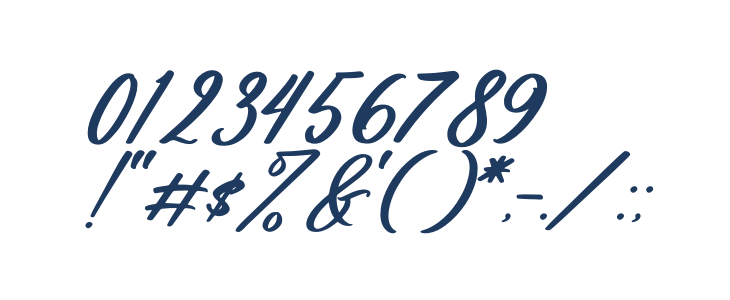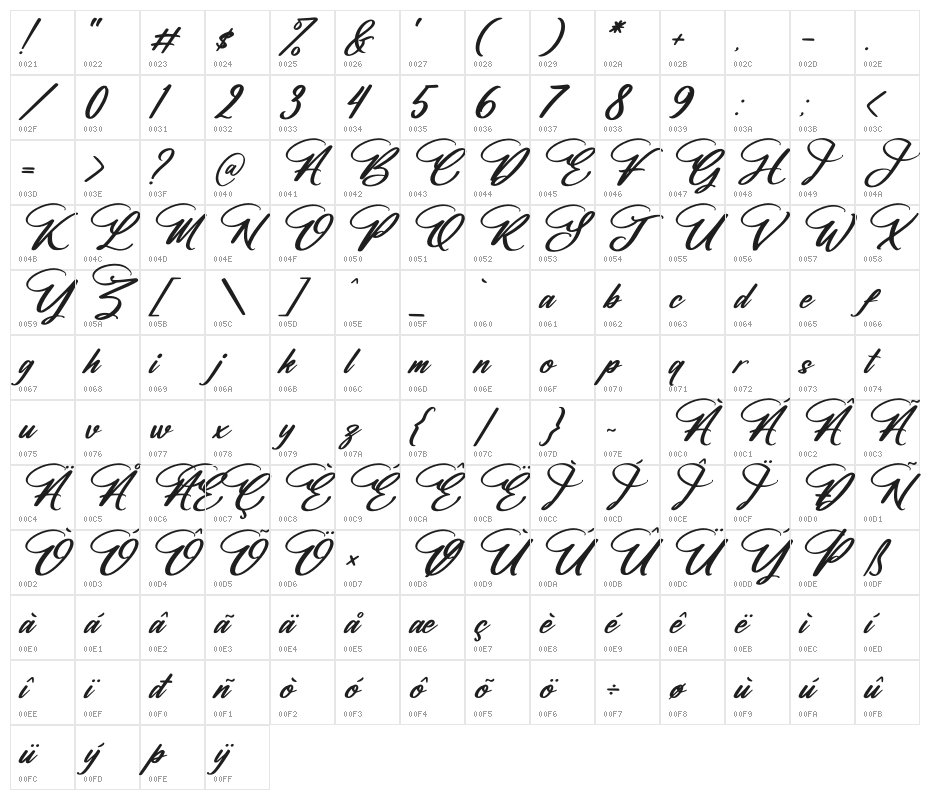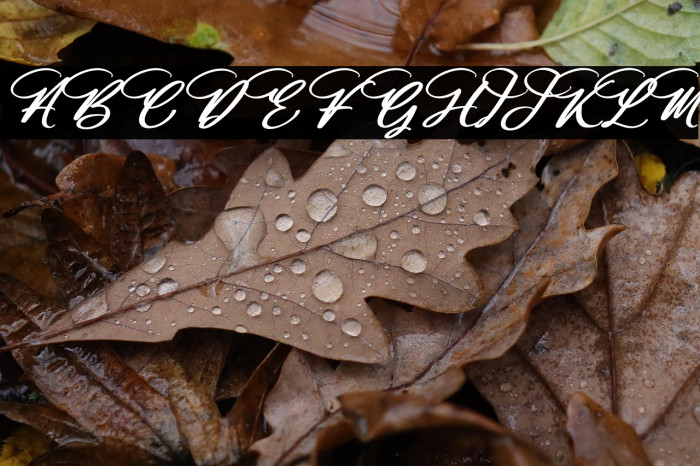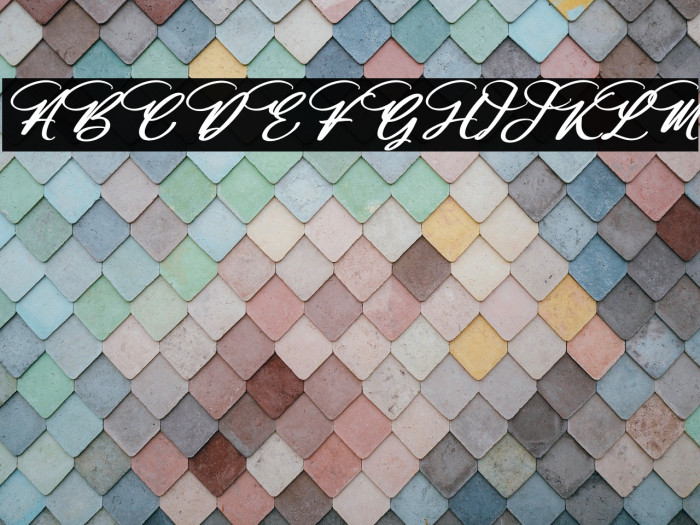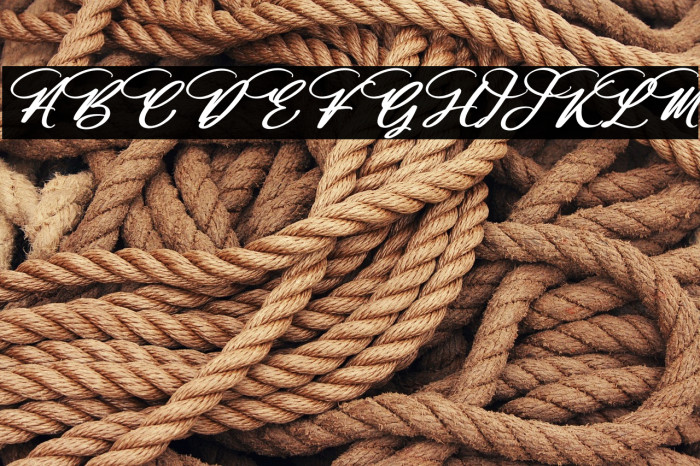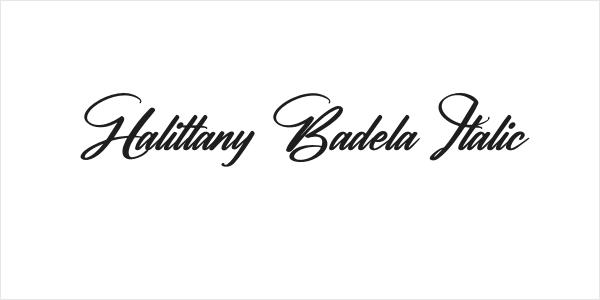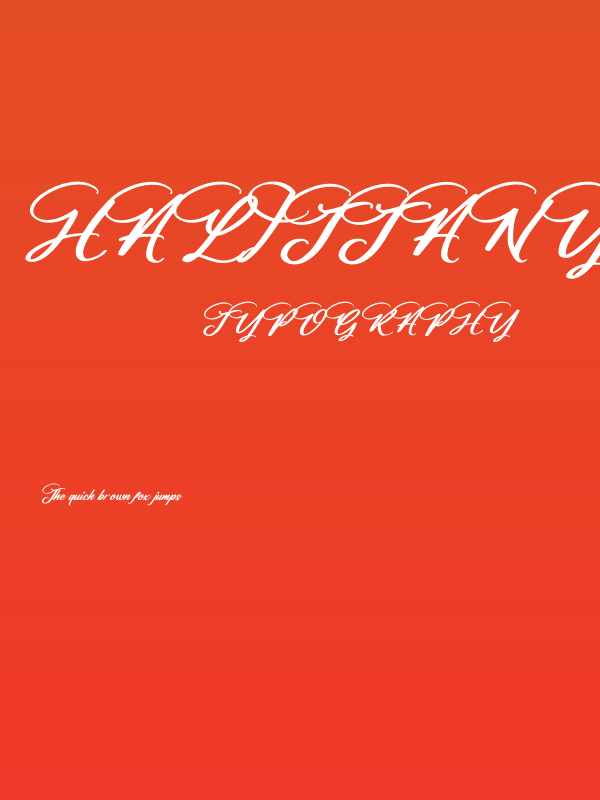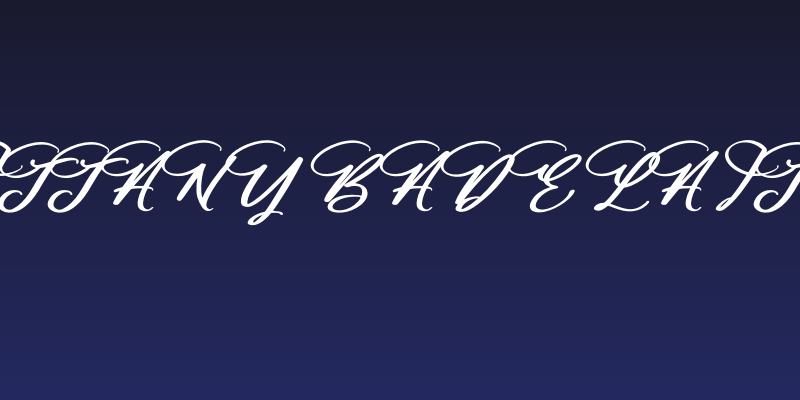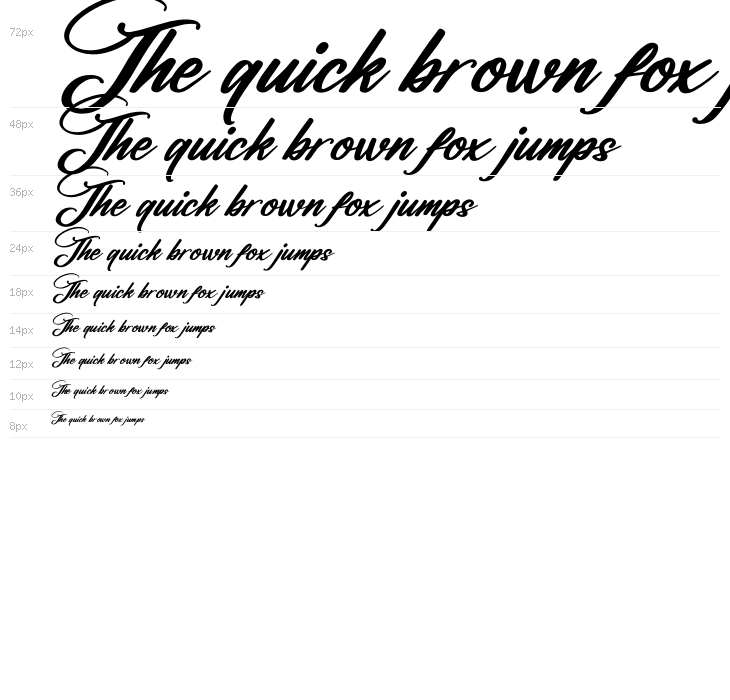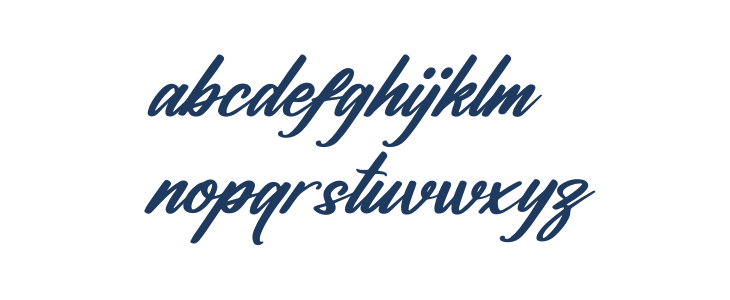
Halittany Badela Italic Font
Halittany Badela Italic Description
This font features a dynamic and flowing script style, characterized by its elegant and cursive letterforms. The uppercase letters exhibit a sophisticated flair with sweeping curves and loops, while the lowercase letters maintain a consistent fluidity that enhances readability. The numerals are bold and distinct, complementing the overall aesthetic. Special characters are seamlessly integrated, maintaining the font's cohesive design. The italic slant adds a sense of motion and grace, making it ideal for projects that require a touch of elegance and personality.
| Overall Style | Elegant, Decorative |
| Proposed Projects | Ideal for wedding invitations, branding, elegant packaging, and personal stationery. |